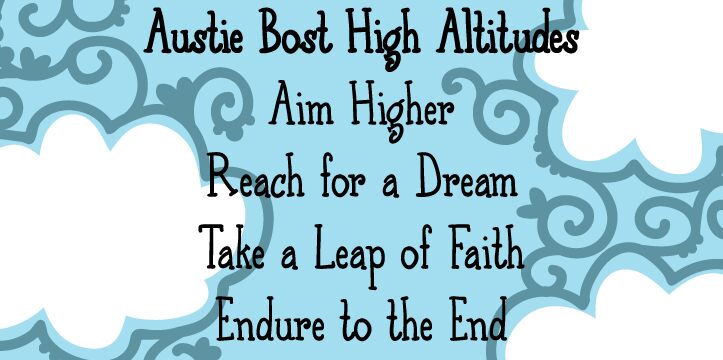
Austie Bost High Altitudes by Austie Bost Fonts is a free handwritten font with lanky, uneven letters and a playful storybook character. Tall strokes, soft bends, and blunt tips keep it lively.
Its storybook quality makes it a natural fit for children's book covers and classroom materials, where the stretched shapes can echo quirky illustrated characters. It also suits handmade food packaging and casual event posters, since the changing line weight gives each word an informal drawn quality. Across these uses, the irregular height and bouncing forms let the lettering become part of the drawing instead of acting as neutral type.